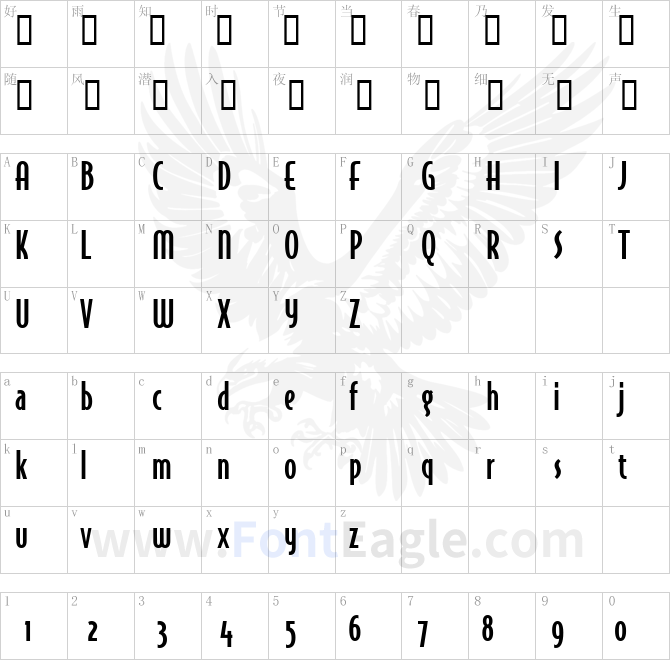
- Font name:BodegaSans MediumOldstyle
- Font Subfamily ID:BodegaSansMediumOldstyle
- Font Full Name:BodegaSans MediumOldstyle
- Postscript:BodegaSansMediumOldstyle
- Font Copyright:Copr. 1992, Greg Thompson and The Font Bureau, Inc. Bodega is a Trademark of Greg Thompson.